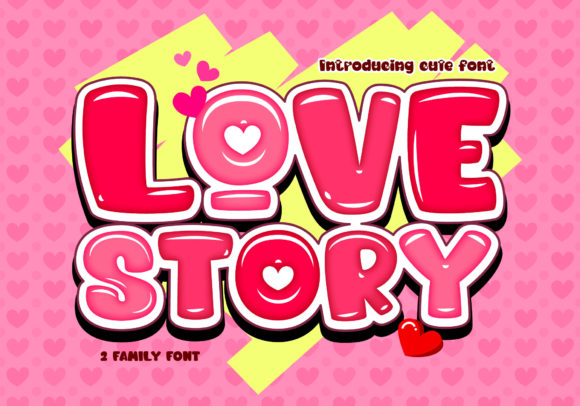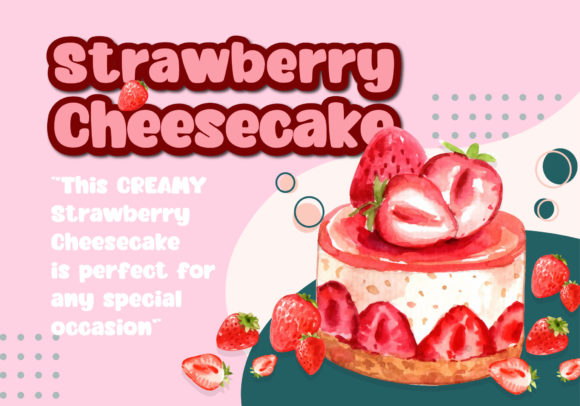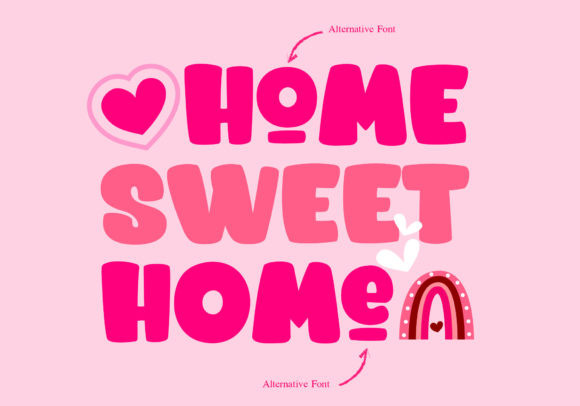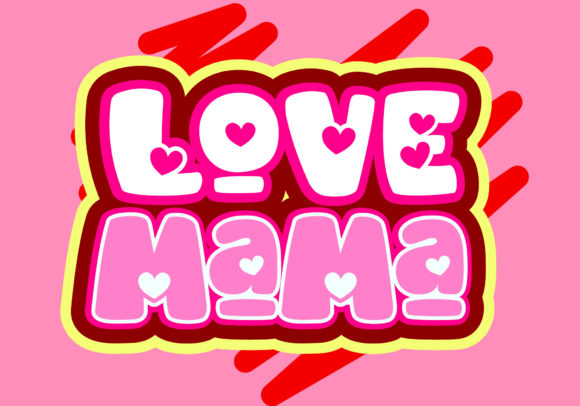
Love Story Font Font
About the Love Story Font Font
Unleash your creativity with Love Story Font Font, a versatile font perfect for a wide range of applications. Love Story is a bubbly, chunky lettered and friendly display font. It embodies playfulness and authenticity and is the perfect choice for any children activity or elementary school design.
Its playful, chunky nature makes it ideal for headlines, children’s book titles, playful branding projects, and eye-catching posters. It’s also well-suited for packaging design for products targeting a young audience. However, its limited character set and large x-height make it unsuitable for body text or UI elements requiring readability in smaller sizes.
Love Story Font pairs well with clean sans-serif fonts like Open Sans for a balanced contrast, or a more playful script font like Pacifico for a consistent, whimsical feel. Consider pairing it with a geometric sans-serif for a modern, slightly retro aesthetic.
The font’s overall personality is undeniably friendly and approachable, conveying a sense of lighthearted fun and youthful energy.